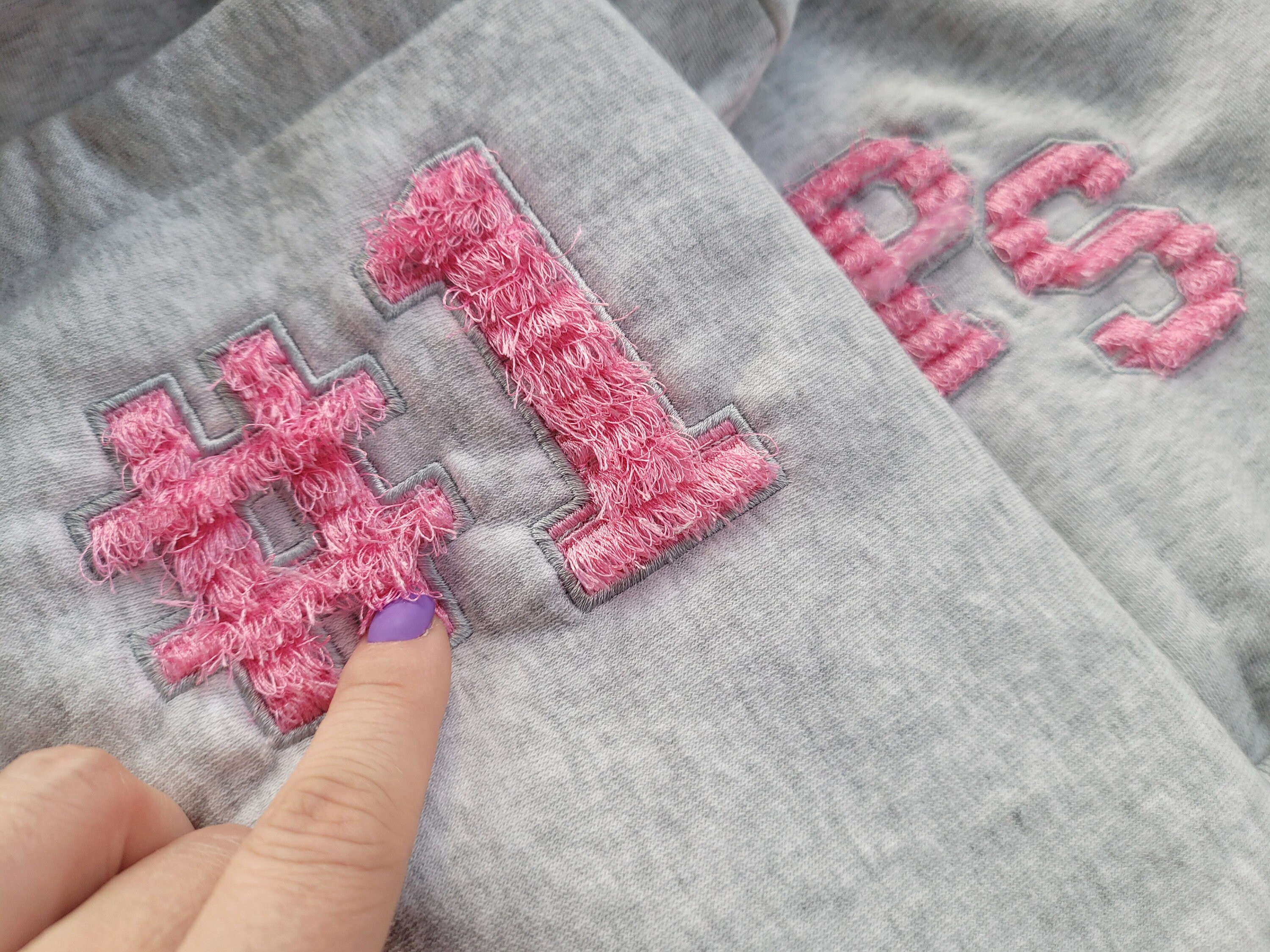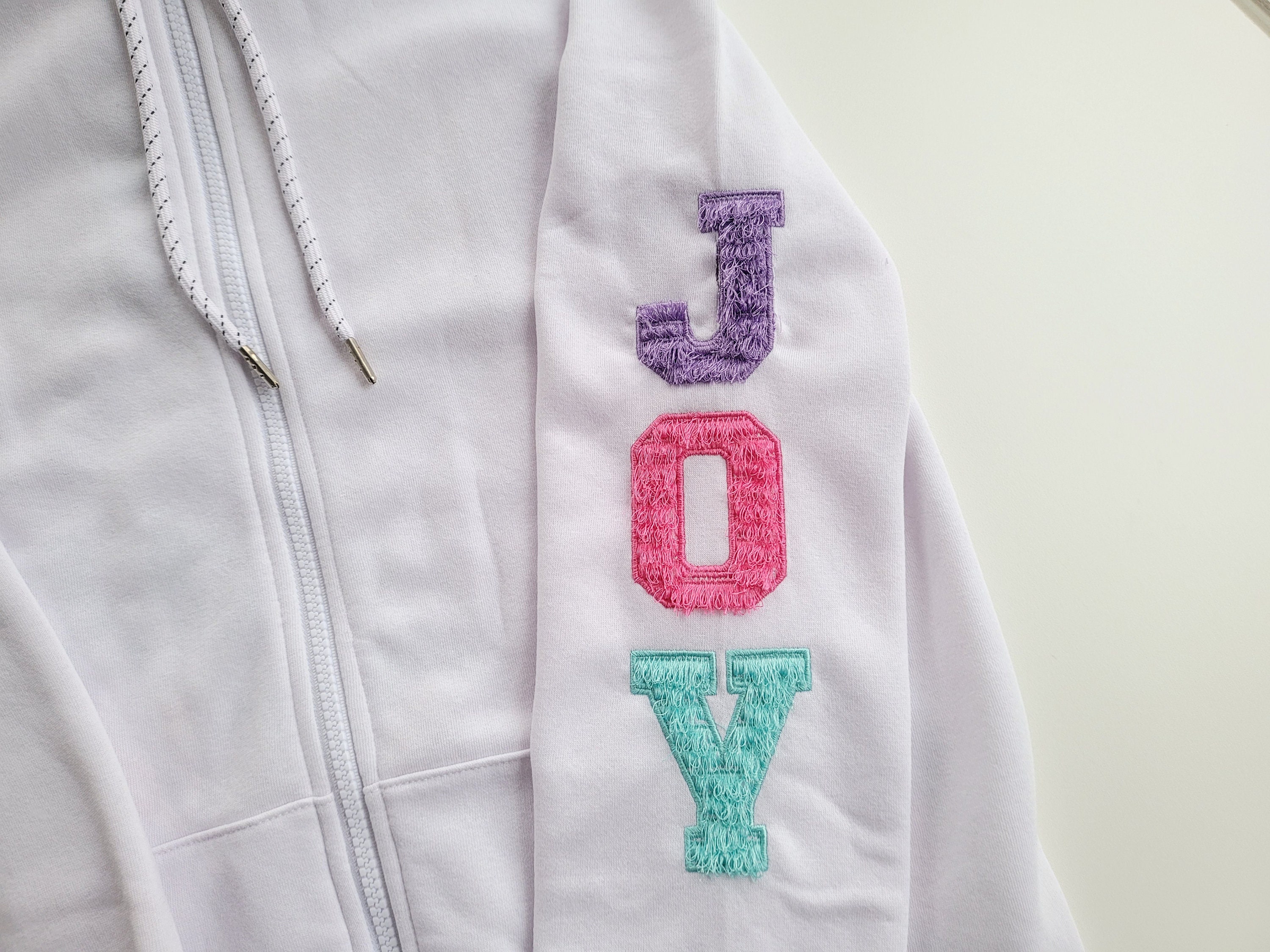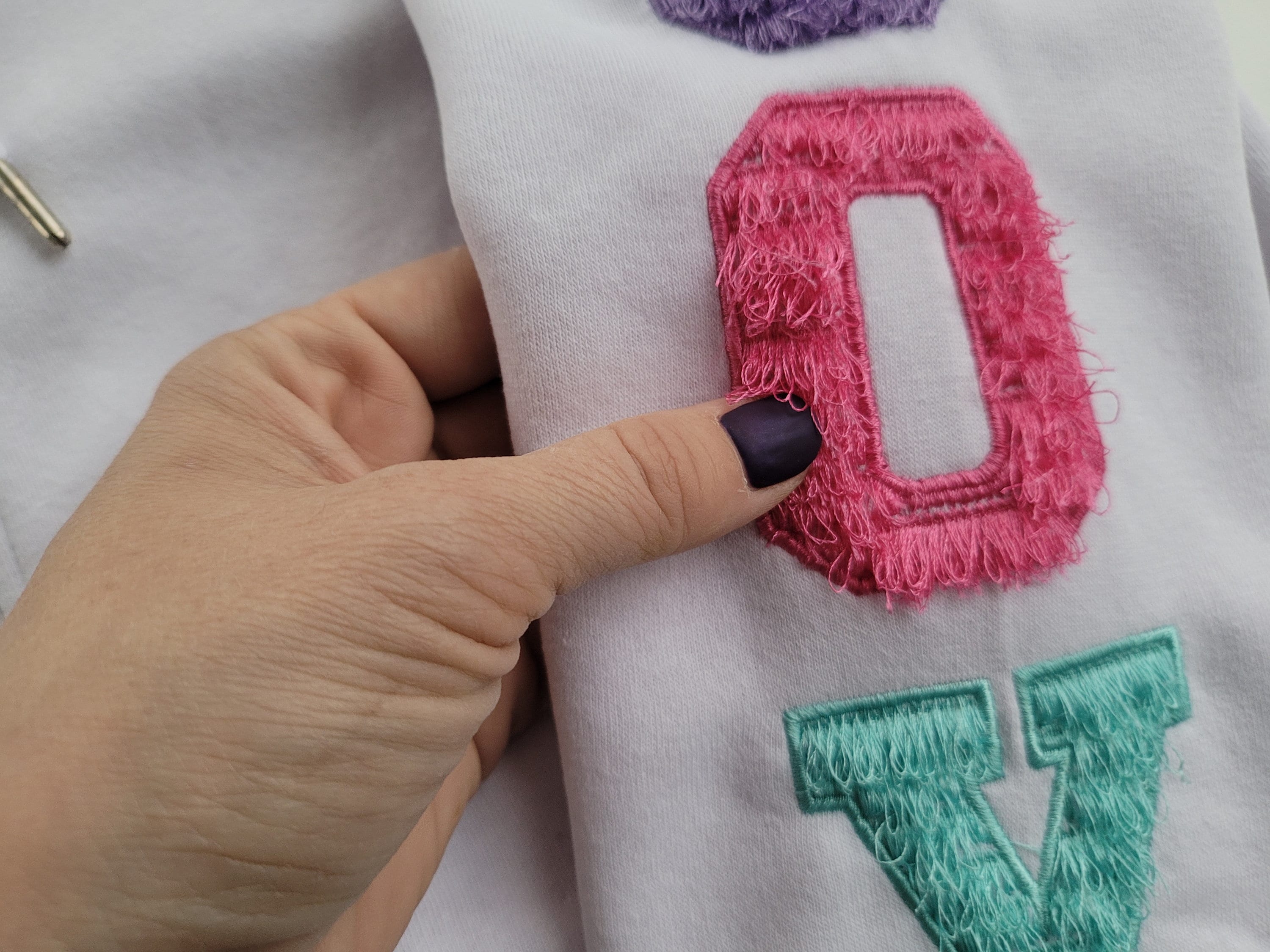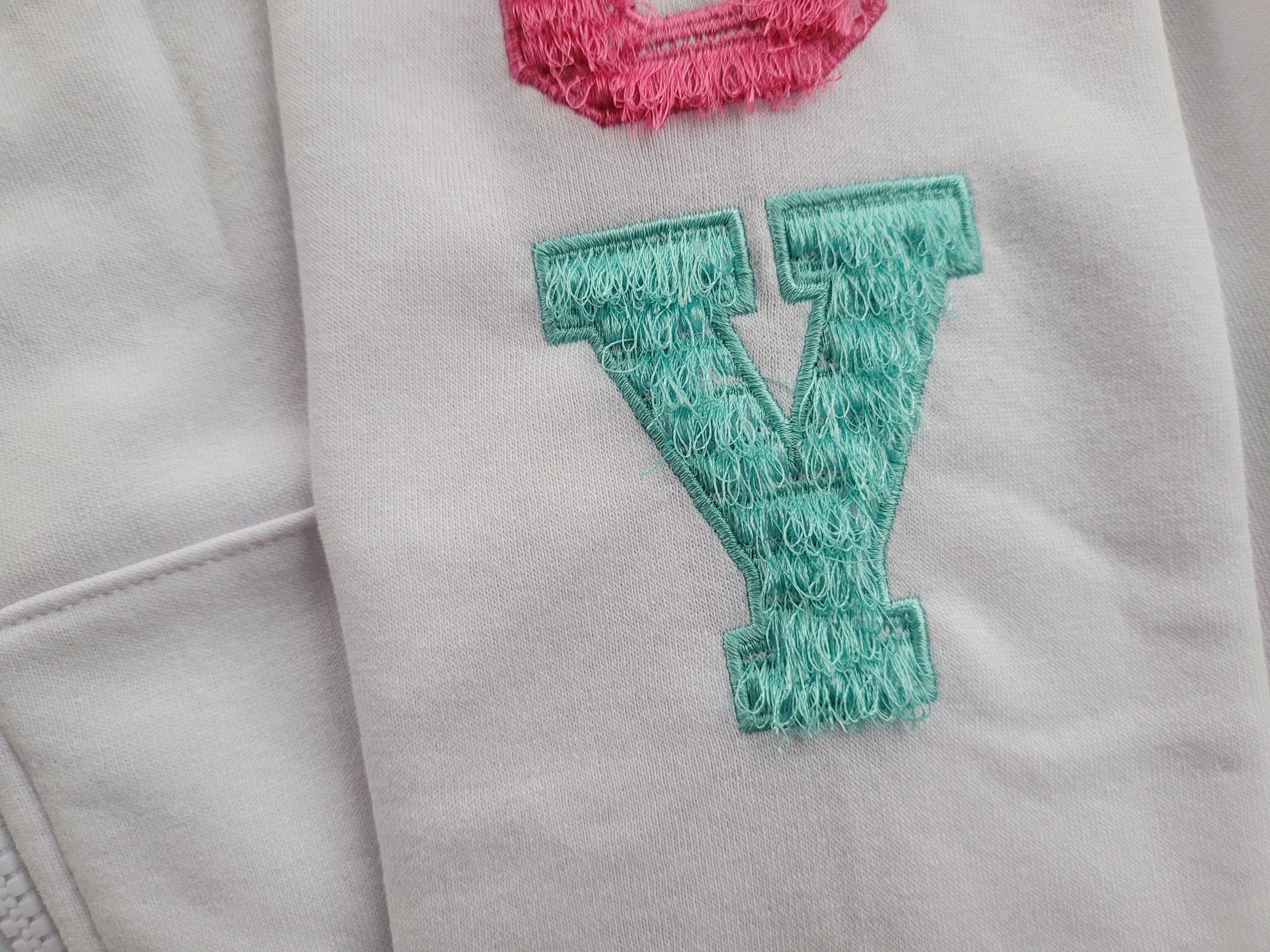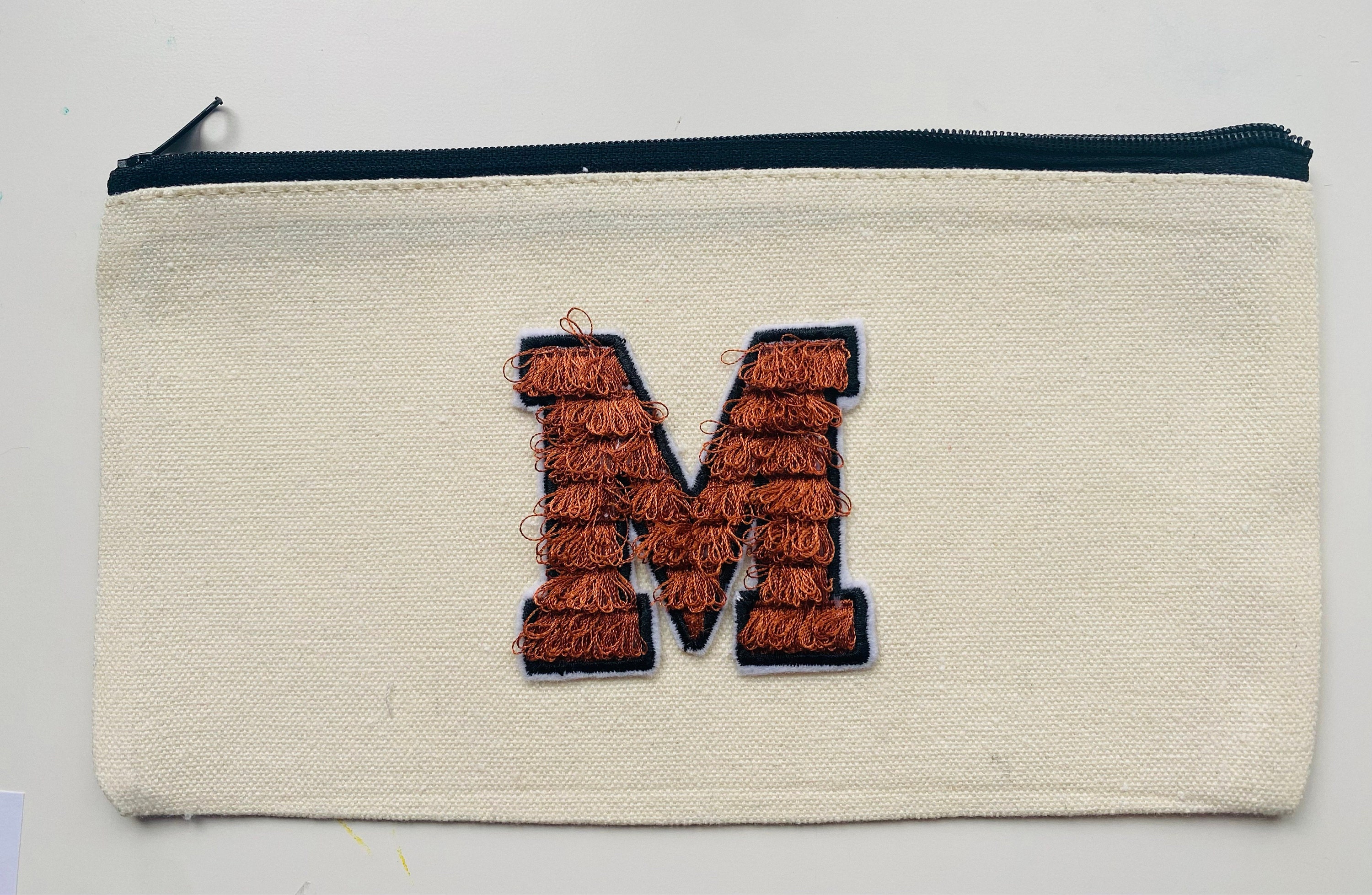
Fringed fluffy Font chenille layers Athletic Sport School Team Players alphabet machine embroidery designs assorted sizes 2.5 up to 6 inches
Uppercase A-Z, numbers 0-9, and punctuation & . , # / !
The design has a special seam holding fringe in place.
It is easy. Embroider the design as usually appliqueing. Large satin stitches will be loose. Once you complete stitching the design, turn over your hoop to see a reverse side, and cut the bobbin thread, along the large satin stitches. Turn the hoop back over and fluff up the "fringe" around. Here is a short video tutorial on my YouTube channel: